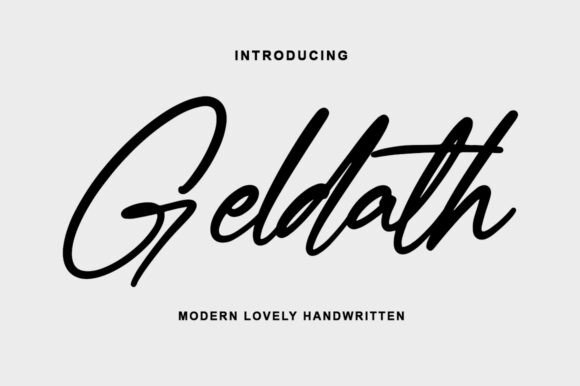
Geldath Font: Elevate Your Designs with a Modern Handwritten Touch
In the world of typography, fonts play a crucial role in conveying the tone and personality of a design. For those seeking a modern, elegant, and personal touch, the Geldath Font is an excellent choice. This contemporary handwritten font seamlessly blends sophistication with a soft, approachable feel, making it perfect for a wide range of creative projects.
What is Geldath Font?
Geldath Font is a modern handwritten typeface that exudes elegance and refinement. Its smooth, flowing lines and stylish strokes are designed to evoke a sense of natural, effortless writing. This font is ideal for designers looking to add a personal touch to their work, whether it’s for branding, advertising, or creative projects.
Geldath Font Key Features
- Modern handwritten style: Geldath Font boasts a neat and stylish pen-written script, giving it a fresh and contemporary look.
- Smooth and flowing curves: The font’s natural, elegant handwriting feel makes it perfect for designs that require a soft, organic touch.
- Feminine and romantic impression: Geldath Font’s gentle, cursive strokes evoke a sense of femininity and romance, making it ideal for soft and emotional design themes.
- Well-balanced uppercase and lowercase characters: The font’s carefully crafted characters ensure a harmonious and balanced look, regardless of the case used.
- Slightly slanted (italic) look: The subtle italic slant adds a sense of motion and grace to the font, making it perfect for designs that require a touch of dynamism.
Where to Use Geldath Font?
Geldath Font’s versatility makes it suitable for a wide range of applications. Here are some of the perfect use cases for this beautiful font:
- Branding & logo design: Create a lasting impression with a custom logo that showcases your brand’s personality and style.
- Wedding invitations: Add a touch of romance and elegance to your wedding invitations, making them truly unforgettable.
- Greeting cards: Whether it’s a birthday, anniversary, or holiday card, Geldath Font is perfect for creating heartfelt and personalized messages.
- Social media content: Stand out on social media with eye-catching graphics and posts that showcase your brand’s unique voice and style.
- Posters & quotes: Create inspiring and visually stunning posters and quotes that motivate and captivate your audience.
- Packaging and product labels: Add a personal touch to your product packaging and labels, making them more relatable and memorable.
Why Choose Geldath Font?
In a world where typography plays a crucial role in design, Geldath Font offers a unique combination of style, elegance, and personality. Here are some reasons why you should consider using Geldath Font for your next project:
- Unique and distinctive: Geldath Font’s modern handwritten style sets it apart from more traditional fonts, making it perfect for designers looking to create a lasting impression.
- Emotional connection: The font’s feminine and romantic impression makes it ideal for designs that require a personal and emotional touch.
- Versatile: Geldath Font’s smooth, flowing lines and stylish strokes make it suitable for a wide range of applications, from branding and advertising to creative projects.
- Elegant and refined: The font’s elegant and refined appearance makes it perfect for high-end designs that require a touch of sophistication.
Tips for Using Geldath Font Effectively
To get the most out of Geldath Font, here are some tips to keep in mind:
- Pair with contrasting fonts: Combine Geldath Font with a contrasting font to create visual interest and hierarchy in your design.
- Use for headlines and titles: Geldath Font’s elegant and refined appearance makes it perfect for headlines and titles, adding a touch of sophistication to your design.
- Experiment with colors: Geldath Font looks stunning in a range of colors, so don’t be afraid to experiment and find the perfect hue for your design.
- Pay attention to spacing: Make sure to leave enough spacing between lines and characters to create a clean and elegant look.
Geldath Font is a modern handwritten font that offers a unique combination of elegance, refinement, and personality. Its smooth, flowing lines and stylish strokes make it perfect for a wide range of creative projects, from branding and advertising to wedding invitations and social media content. With its feminine and romantic impression, Geldath Font is sure to add a personal touch to your designs, making them more relatable and memorable.